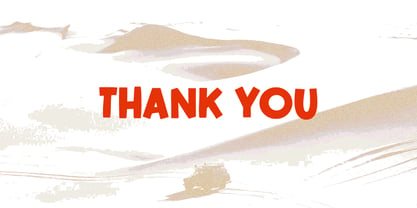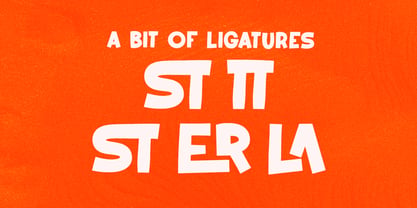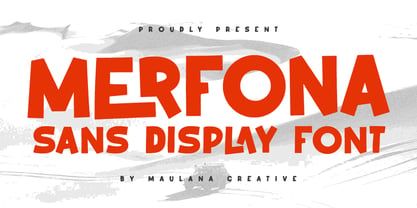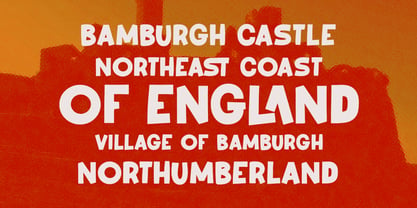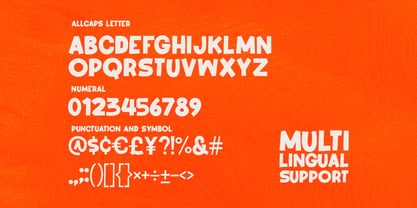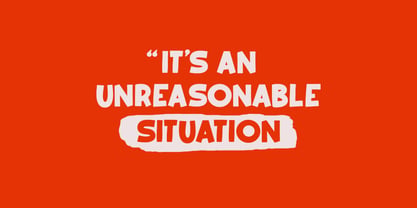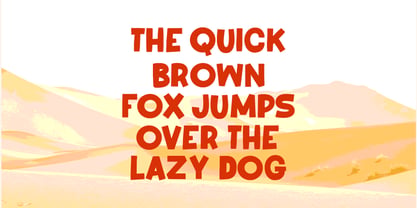
MC Merfona
by Maulana Creative
The MC Merfona Font Family was designed by Gilang Maulana and published by Maulana Creative. MC Merfona contains 1 styles. More about this family
Merfona sans display font. Fun character with a bit of ligatures. To give you an extra creative work. This font is good for logo design, Social media, Movie Titles, Books Titles, a short text even a long text letter and good for your secondary text font with script or serif. Make a stunning work with Merfona font.
Designers: Gilang Maulana
Foundry: Maulana Creative